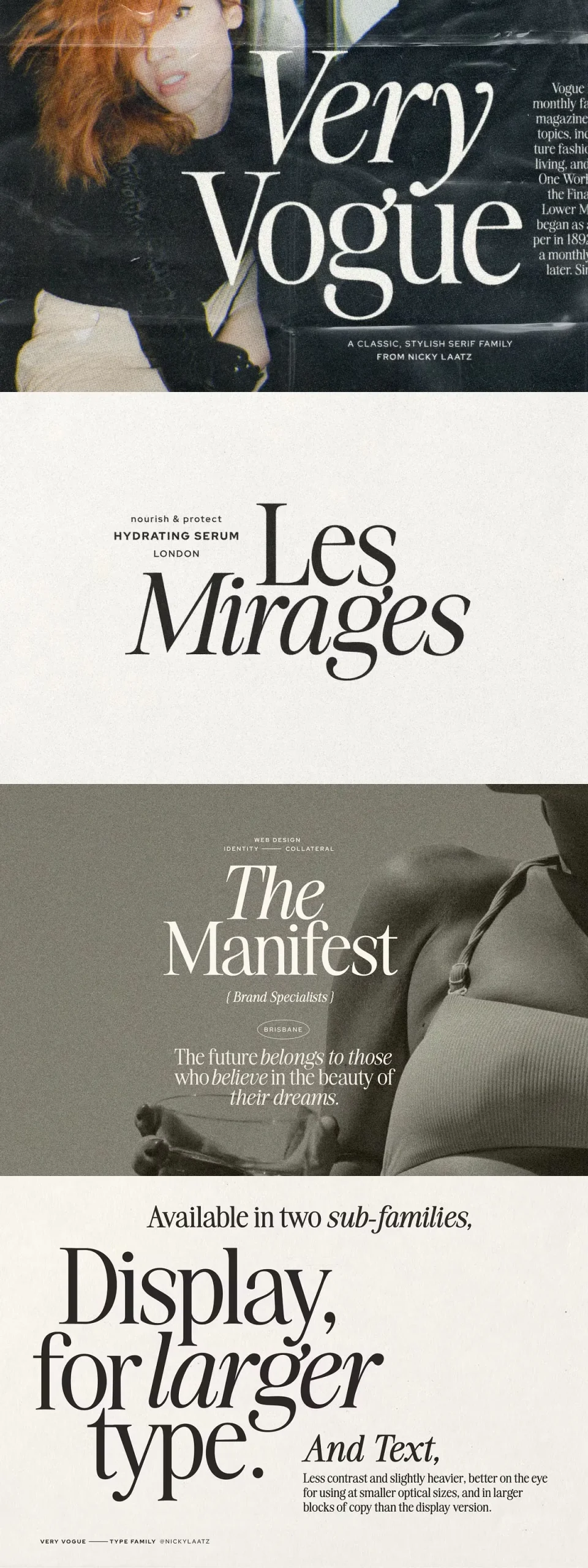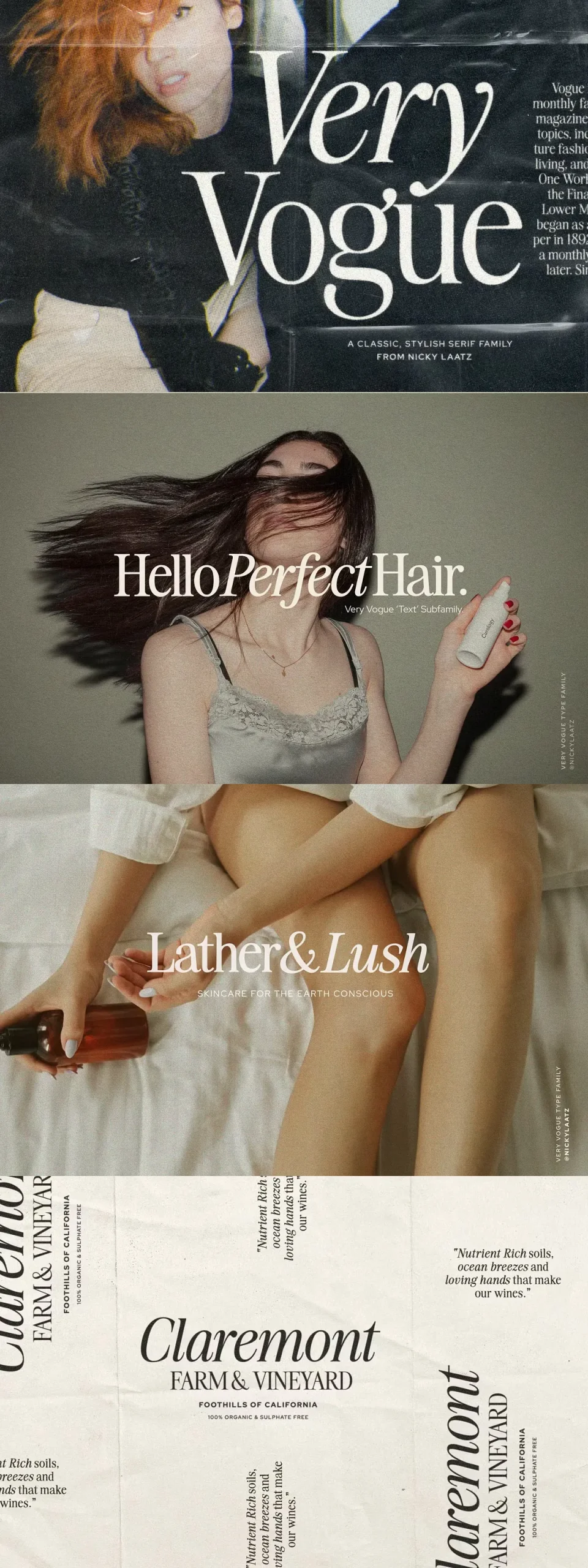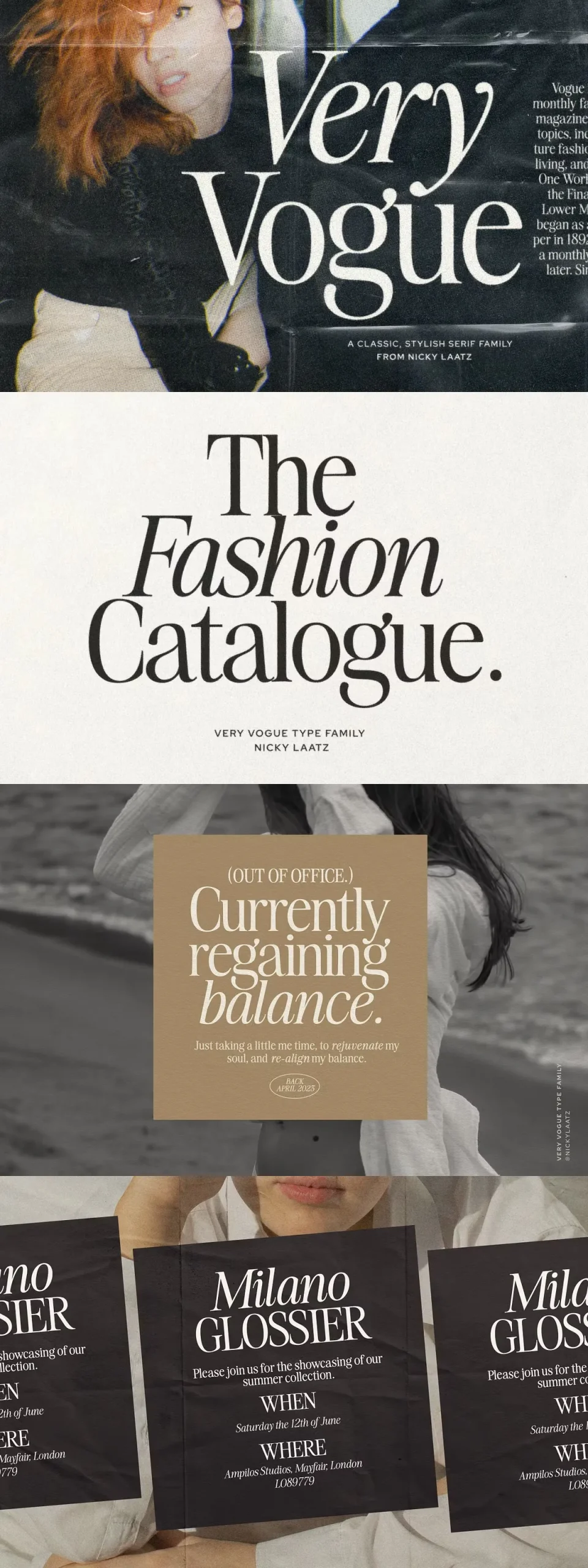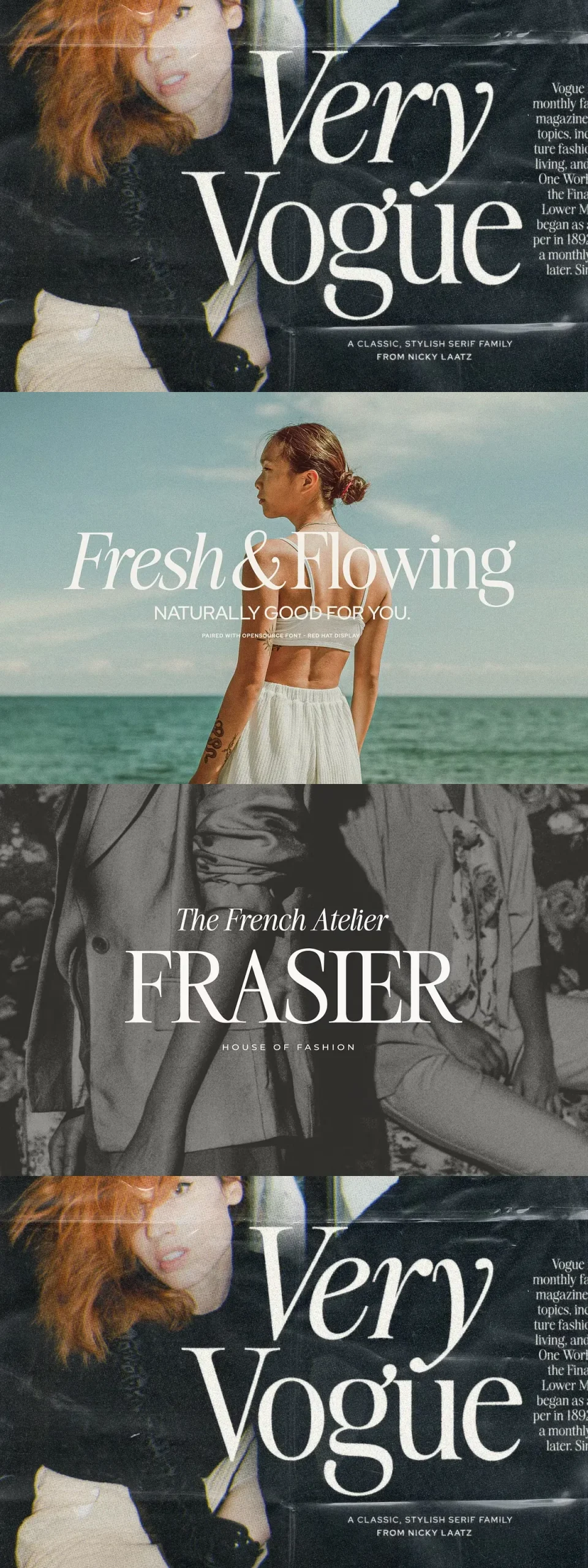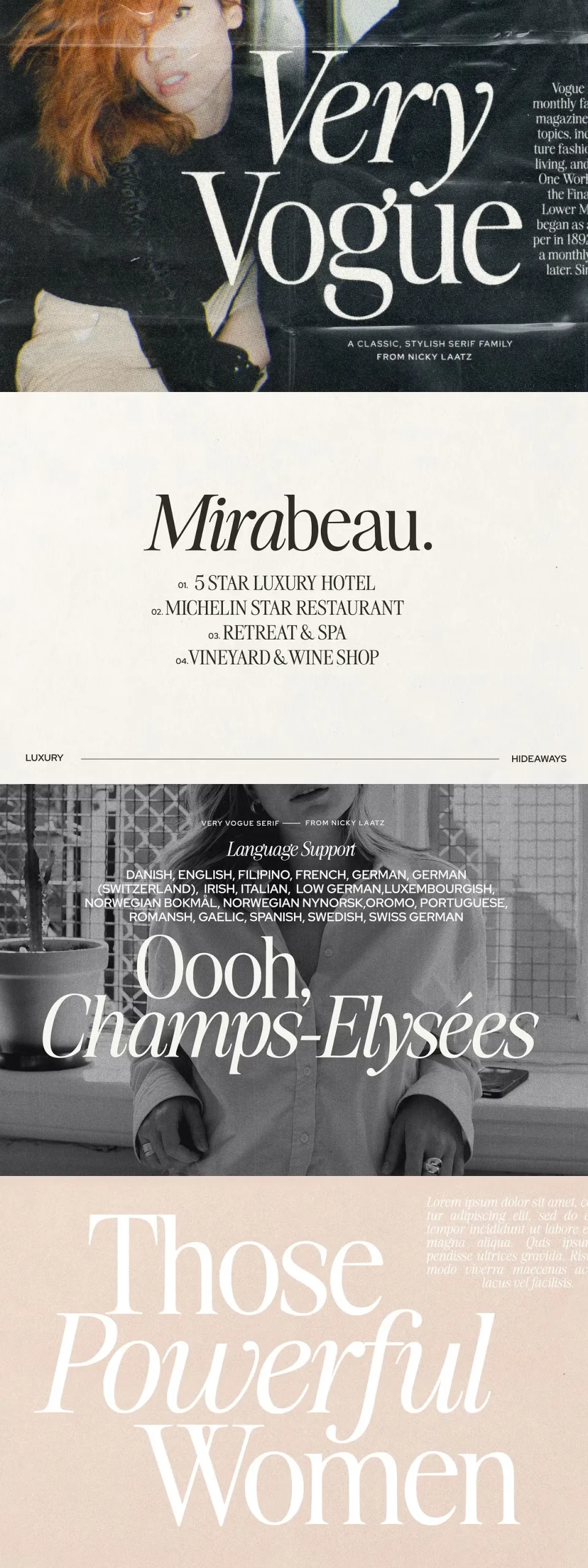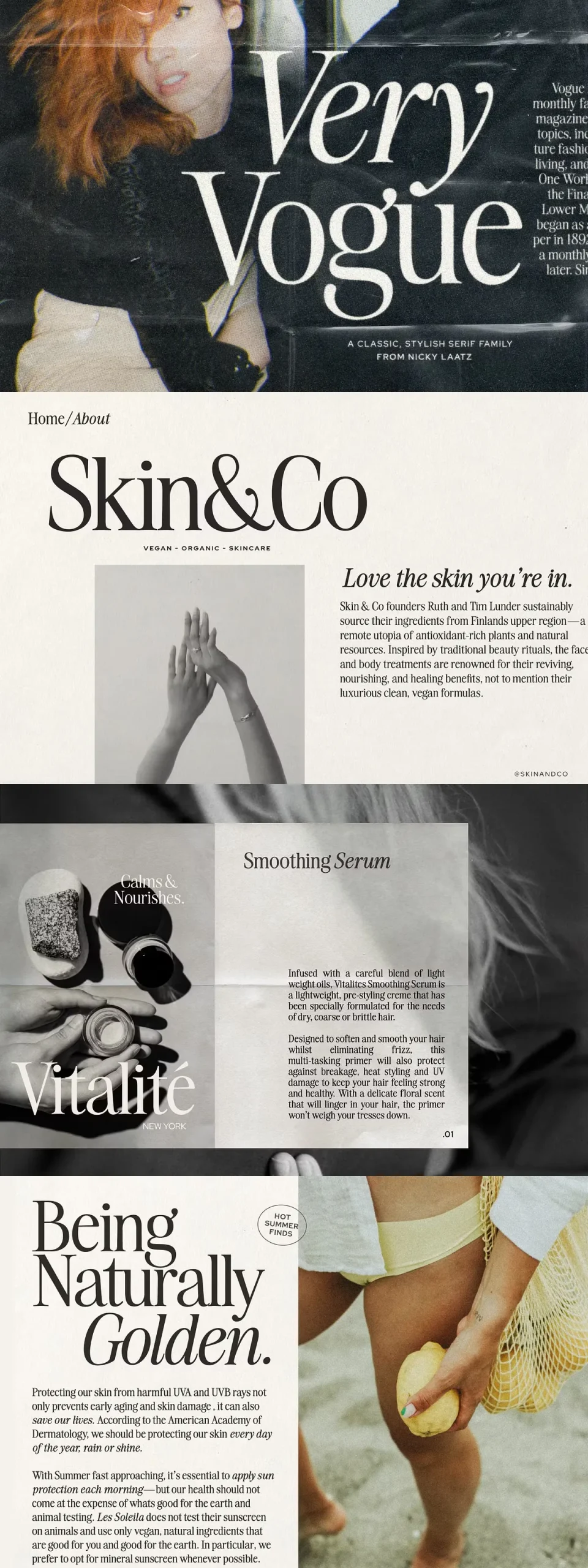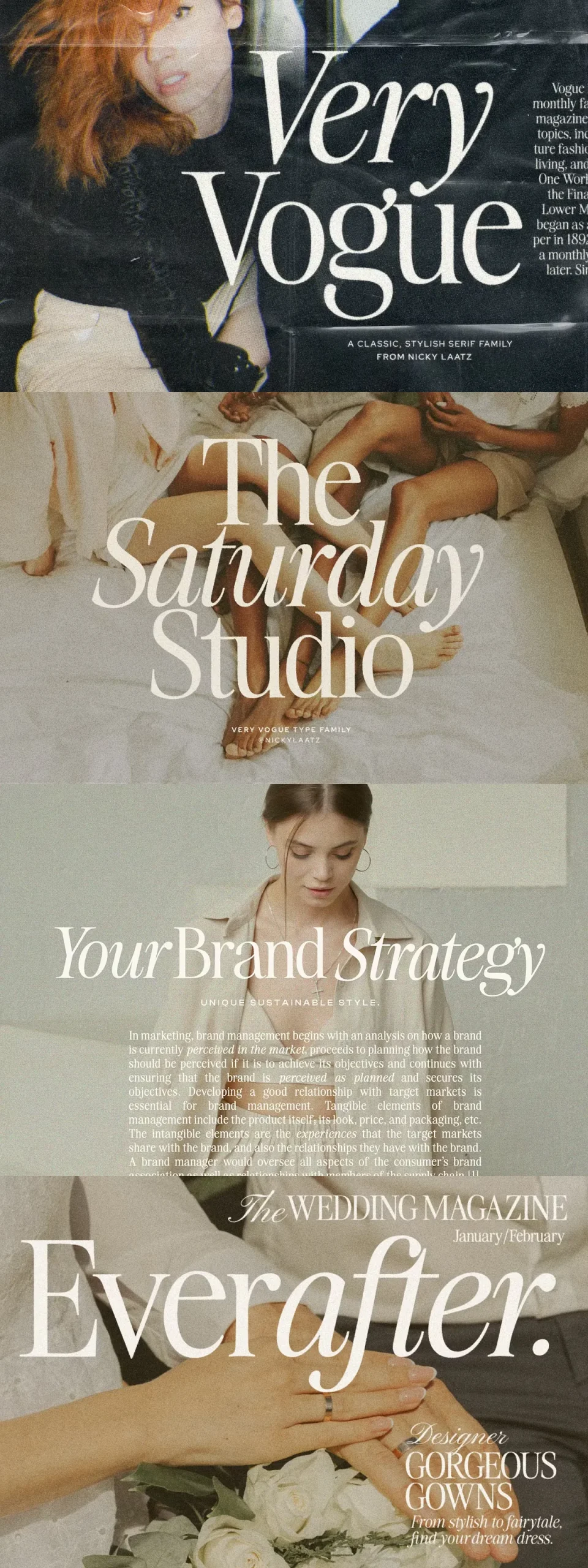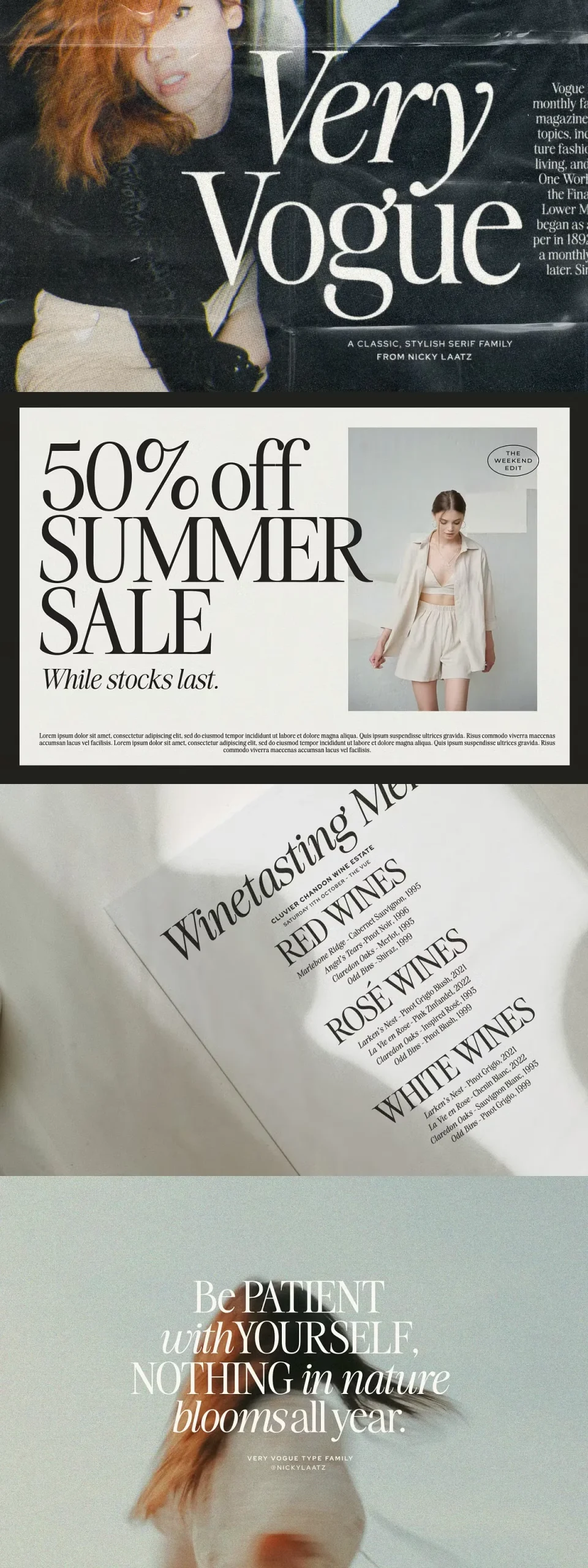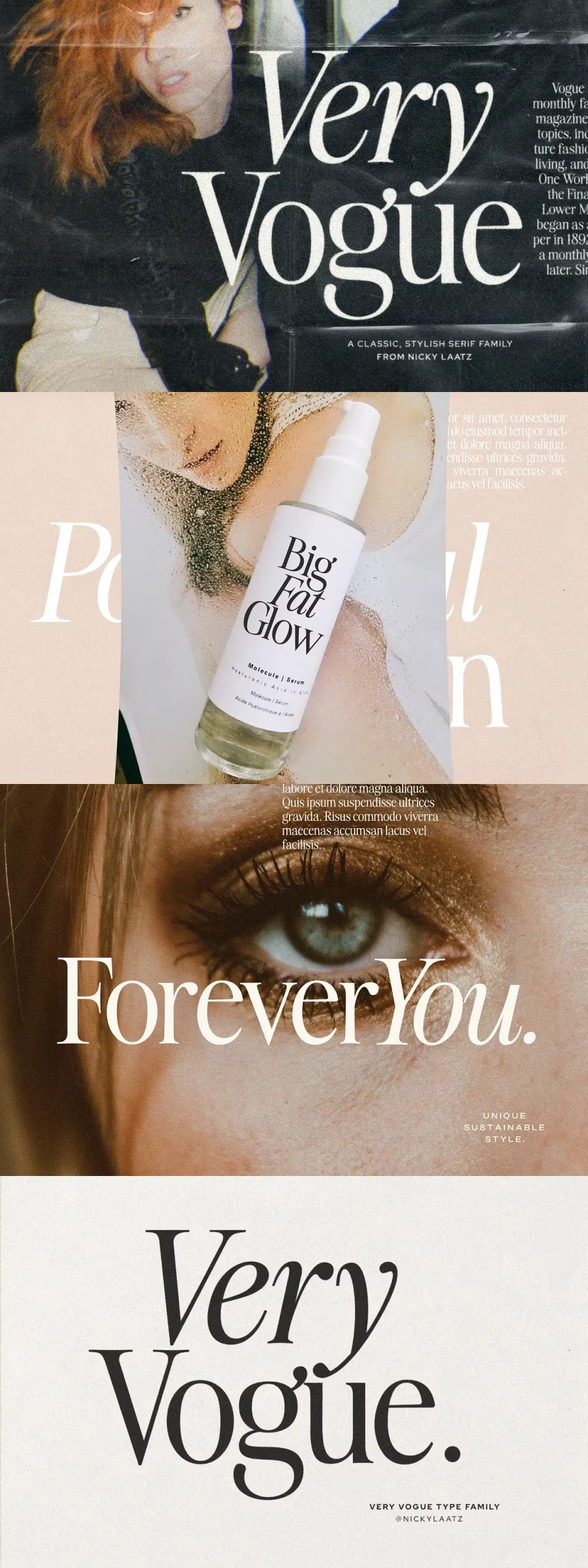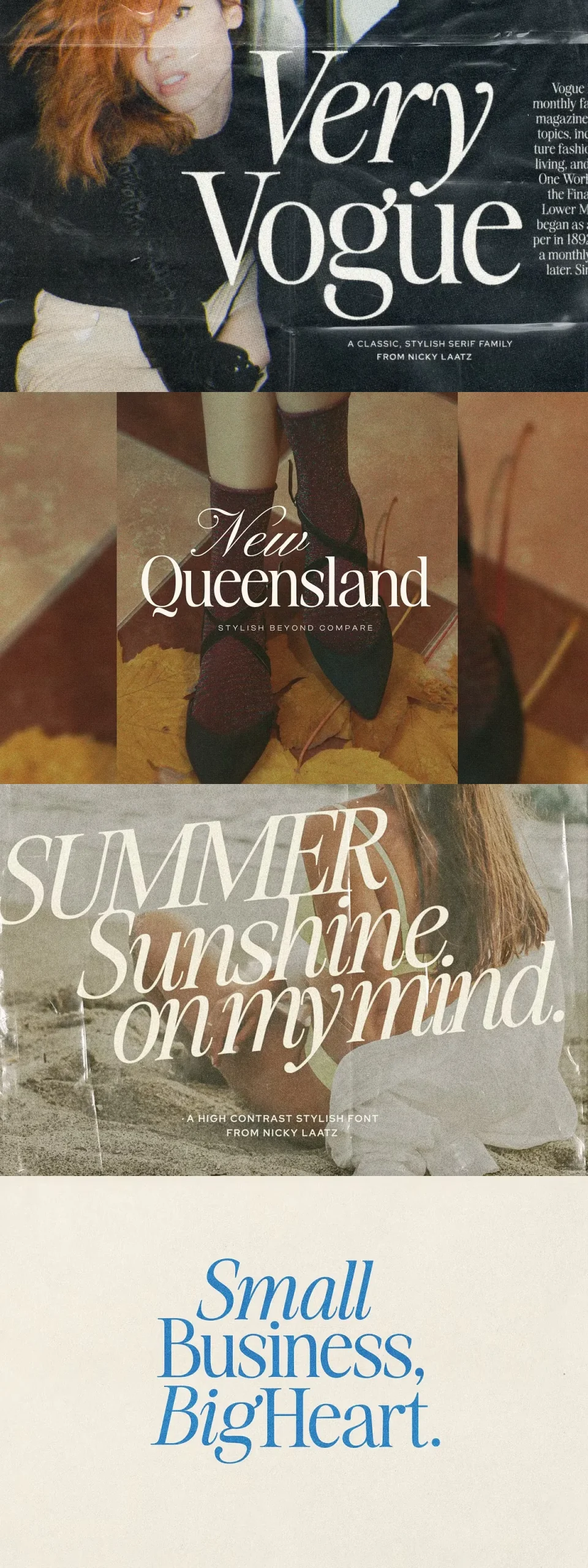
Classic and refined, and the epitome of style, Very Vogue Serif Family has soft curves and attention to detail make Very Vogue Display Serif a must for any projects requiring that upper level of class. Truly versatile – She also has a tomboy side – with her twin